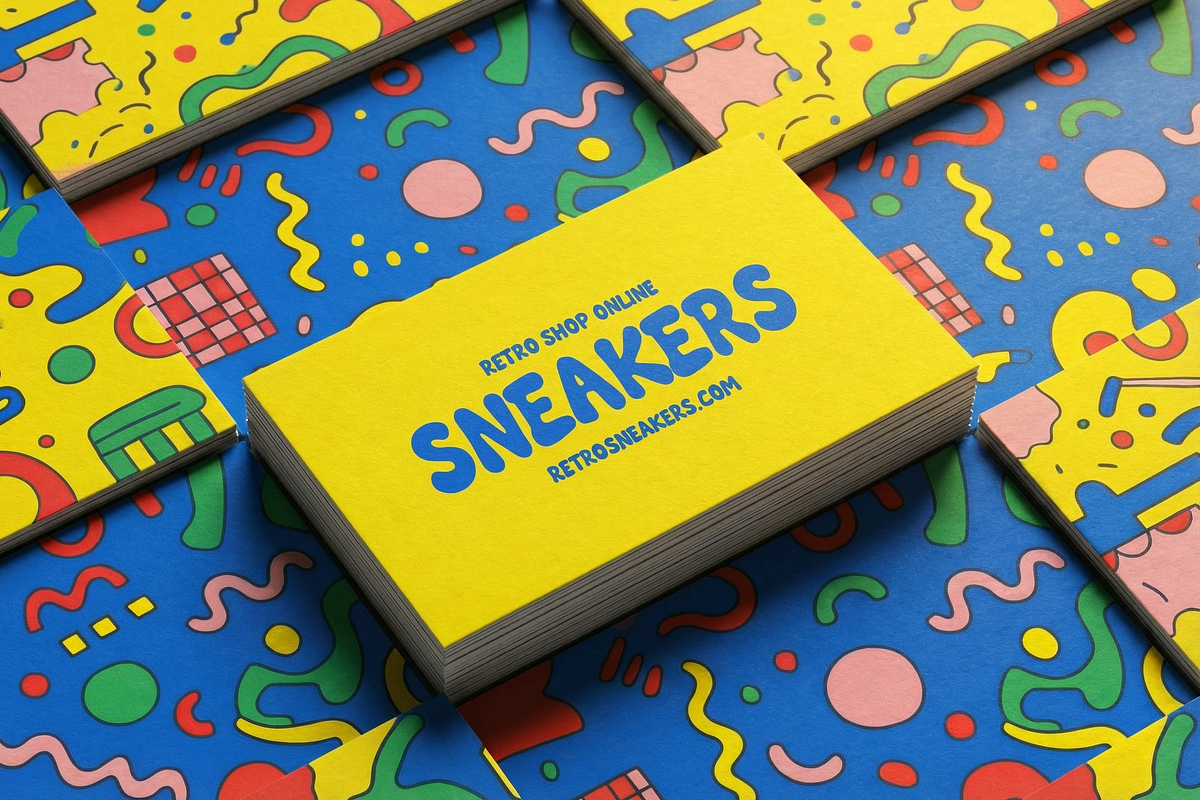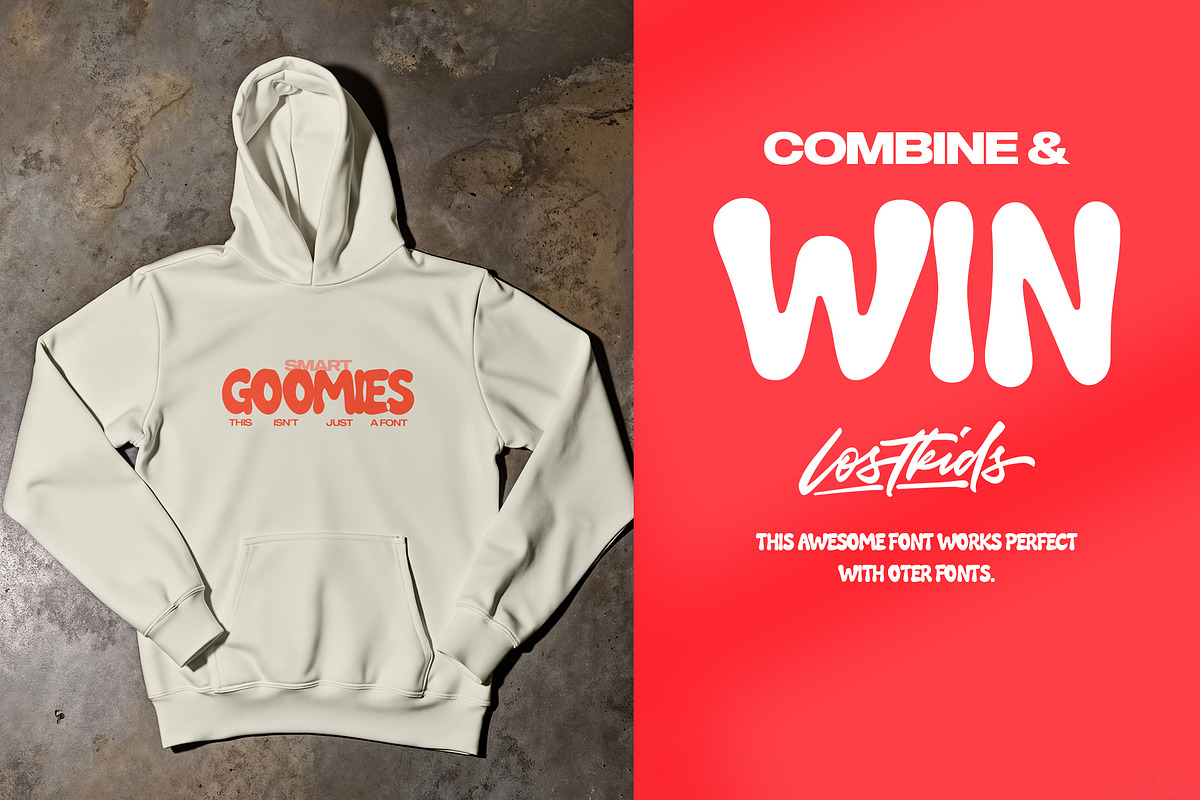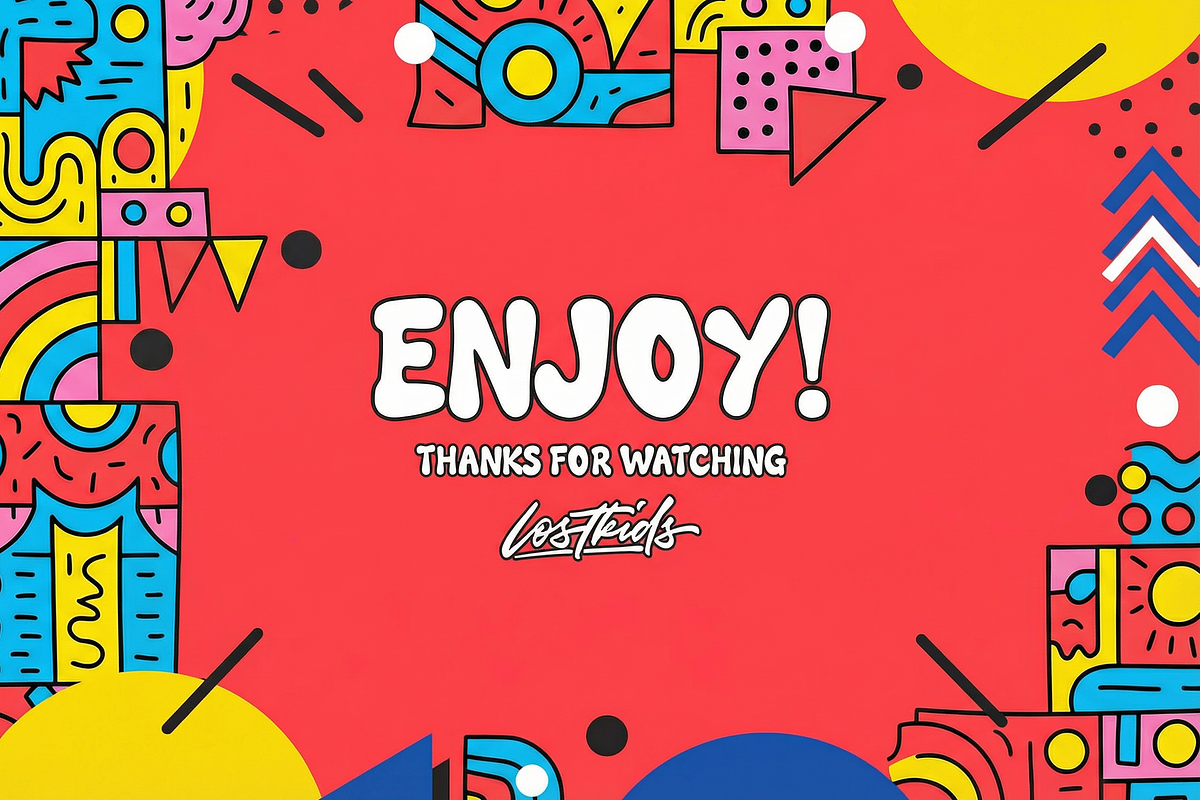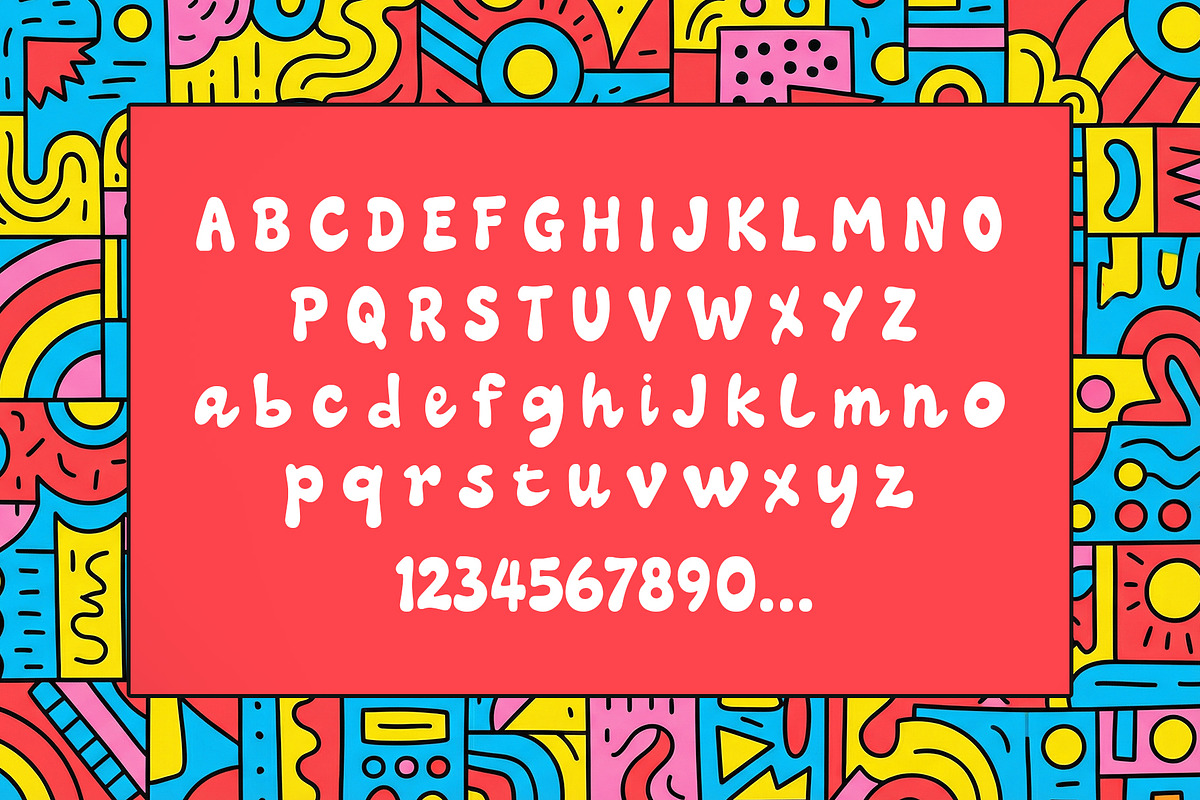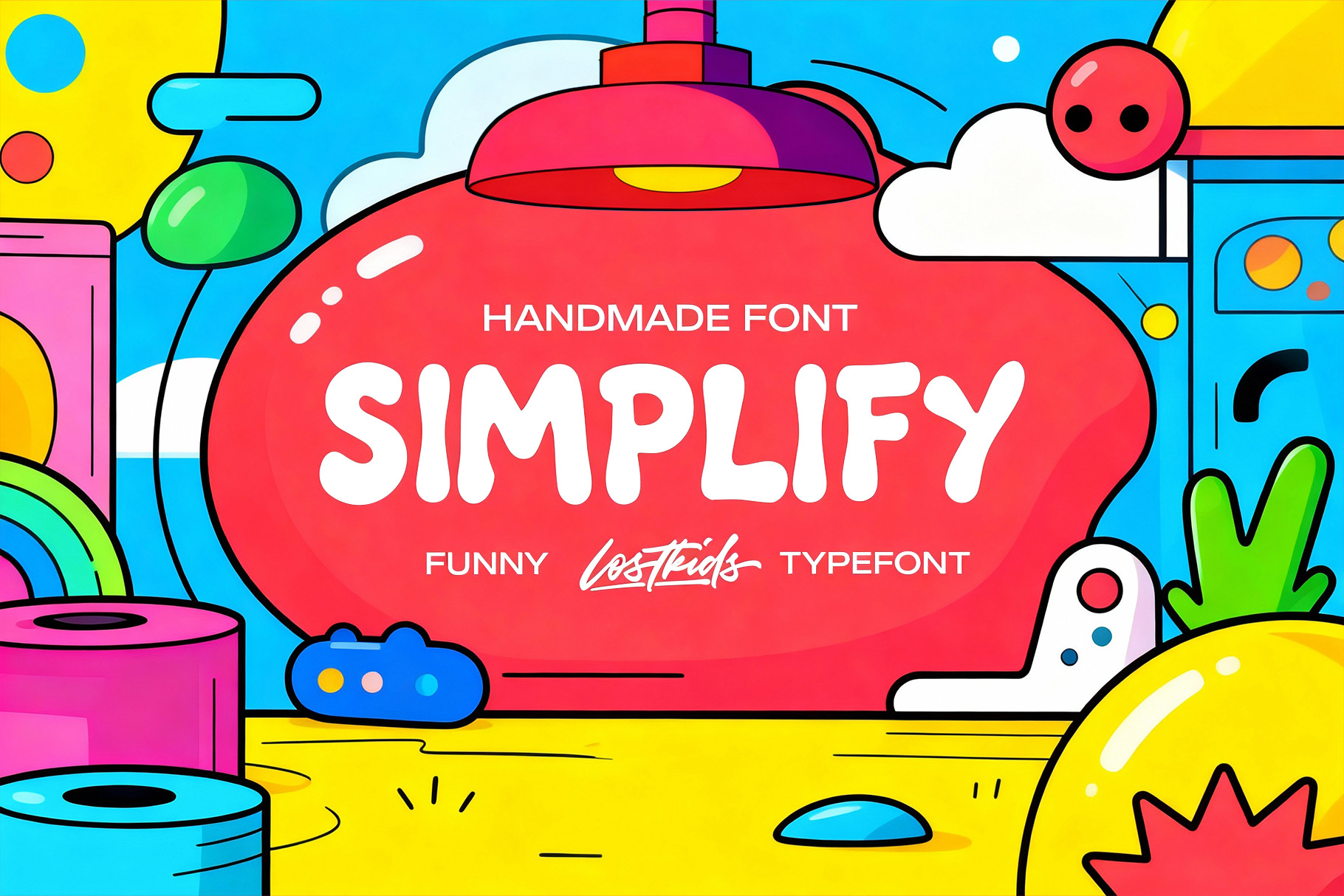
Simplify - Rounded Handmade Font
SIMPLIFY is an incredibly fun, bold, and playful display font that instantly injects a dose of joy and high energy into any project. Handcrafted with a charming, quirky aesthetic, this typeface is the ultimate solution for designs that need to stand out with a friendly, eye-catching vibe.
✨ Key Features: Bubble Style: Features smooth, extra-rounded edges and a chunky, inflated appearance, perfect for a modern, whimsical look.
Handmade/Hand-Drawn Feel: The slightly imperfect, authentic curves give it a unique, handcrafted character that feels warm and approachable.
🎯 Perfect for: Branding & Logos: Create memorable, cheerful brand identities.
Packaging Design: Make your product pop off the shelf (especially for food, toys, or kids' products).
Apparel & Merchandise: Awesome for t-shirts, posters, and stickers.
Social Media & Headers: Design eye-catching Instagram graphics, YouTube thumbnails, and website headers.
Children’s Projects: Ideal for books, games, and educational materials.
Event Promotion: Stand out for parties, festivals, or fun gatherings.